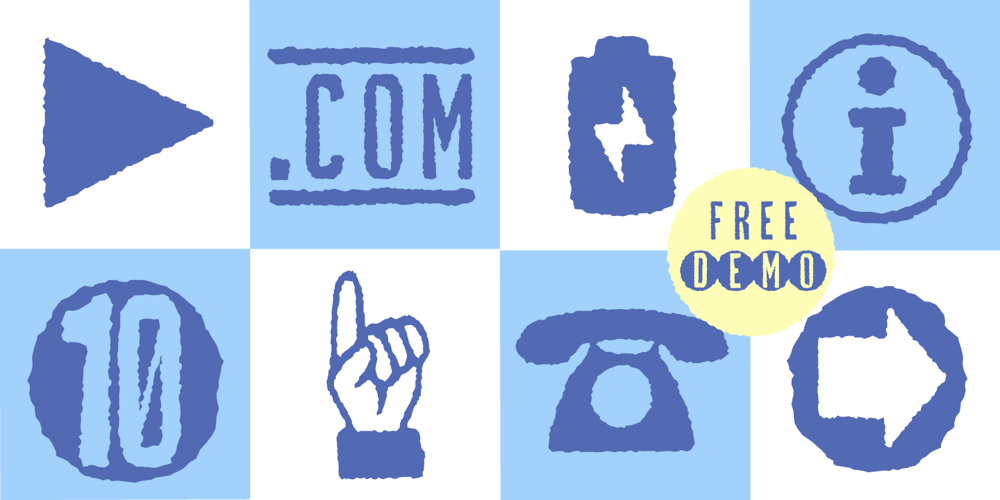
Czykago Rough Font Family was designed by Alexander Branczyk, Manuel Viergutz and published by TypoGraphicDesign. Czykago Rough contains 9 styles and family package options. From 2019 back to the 90s … The typeface “Czykago Rough” by Alexander Branczyk and Manuel Viergutz is a re-issue of the font “Czykago” published in 1995 by the font label “Face2Face”. Designed as a re-release for the Font Foundry “Typo Graphic Design” in 2019. The rough sans serif display font is inspired by the 80s and 90s. Glyhph-Set: Latin Extended (Adobe Latin 3). 907 glyphs with 3× A–Z & a–z and 350+ decorative extras like icons, arrows, dingbats, emojis, symbols, sign of the zodiac, geometric shapes, catchwords, decorative ligatures (type the word #LOVE for ❤ or #SMILE for ☺ as OpenType-Feature dlig) and stylistic alternates (4× stylistic sets). For use in logos, magazines, posters, advertisement plus as webfont for decorative headlines. The font works best for display size. Have fun with this font & use the DEMO-FONT (with reduced glyph-set) FOR FREE! ■ Font Name: Czykago Rough ■ Font Weights: Cond + Stretch + Mix + CondBG + Icons + DEMO (with reduced glyph-set) ■ Font Category: Display for headline size ■ Font Format: .otf (OpenType Font for Mac + Win) + .ttf (TrueType Font) ■ Glyph Set: 907 glyphs with 350+ decorative extras like icons ■ Language Support: 80+ for Latin Extended (Adobe Latin 3). Afrikaans, Albanisch, Baskisch, Bemba, Bena, Bosnisch, Dänisch, Deutsch, Englisch, Estnisch, Färöisch, Filipino, Finnisch, Französisch, Friulisch, Galizisch, Gusii, Indonesisch, Irisch, Isländisch, Italienisch, Kabuverdianu, Kalenjin, Katalanisch, Kinyarwanda, Kölsch, Kornisch, Kroatisch, Lettisch, Litauisch, Luhya, Luo-Sprache, Luxemburgisch, Machame, Madagassisch, Makhuwa-Meetto, Makonde, Malaiisch, Manx, Morisyen, Niederländisch, Niedersorbisch, Nord-Ndebele, Norwegisch Bokmål, Norwegisch Nynorsk, Nyankole, Obersorbisch, Oromo, Pare, Polnisch, Portugiesisch, Rätoromanisch, Rombo, Rukiga, Rumänisch, Rundi, Rwa, Samburu, Sango, Sangu, Schottisches Gälisch, Schwedisch, Schweizerdeutsch, Sena, Shambala, Shona, Slowakisch, Slowenisch, Soga, Somali, Spanisch, Suaheli, Taita, Teso, Tschechisch, Türkisch, Turkmenisch, Ungarisch, Vunjo, Zulu ■ Specials: Alternative letters, stylistic sets, automatic contextual alternates via OpenType Feature (3× different versions of A–Z & 0–9 + a–z), Euro, kerning pairs, standard & decorative ligatures, Versal Eszett (German Capital Sharp S), 350+ extras like Dingbats & Symbols, arrows, hearts, emojis/smileys, stars, further numbers, lines & geometric shapes ■ Design Date: 1995–2019 ■ Type Designer: Alexander Branczyk and Manuel Viergutz